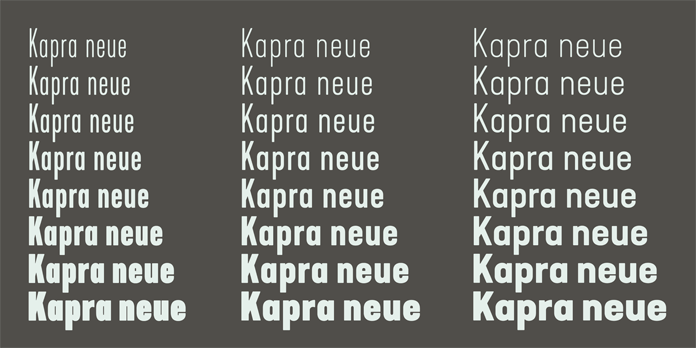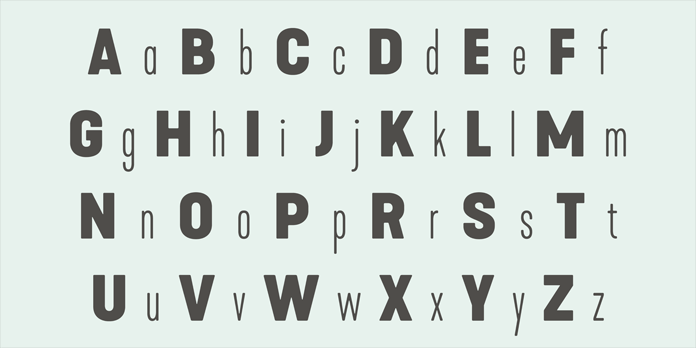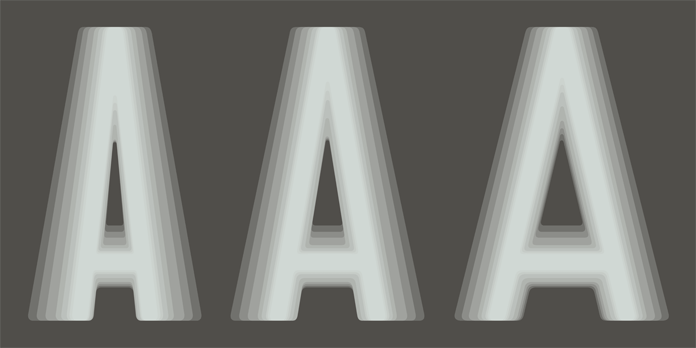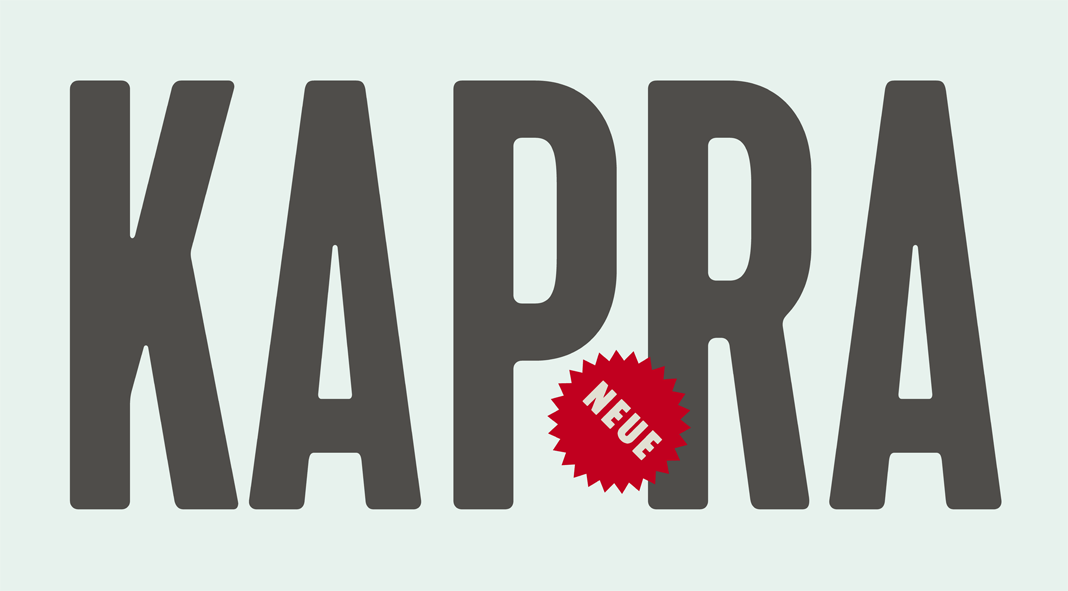
Kapra Neue, a sans serif font family that comes in 48 styles.
Recently published by Typoforge Studio, Kapra Neue is the younger and completely revised sister of the Kapra typeface. The new font family is characterized by refreshed proportions, more rounded corners, and new glyphs. Furthermore, the sans serif family includes 24 new weights and 3 different widths ranging from Thin Condensed to Black Expanded. Depending on the user’s needs, Kapra Neue is a great choice for various applications such as branding, signage, editorial work, just to name a few. Each style is equipped with a glyph set for Latin script and old-style figures. Just see more below.